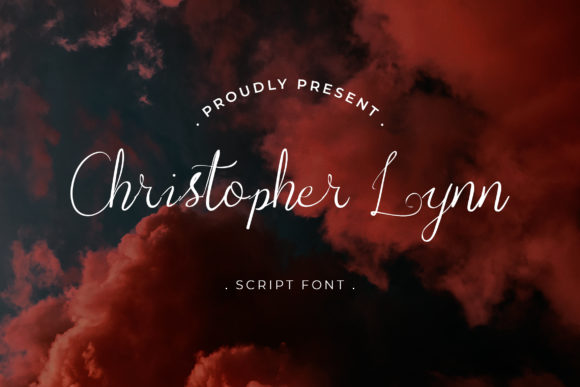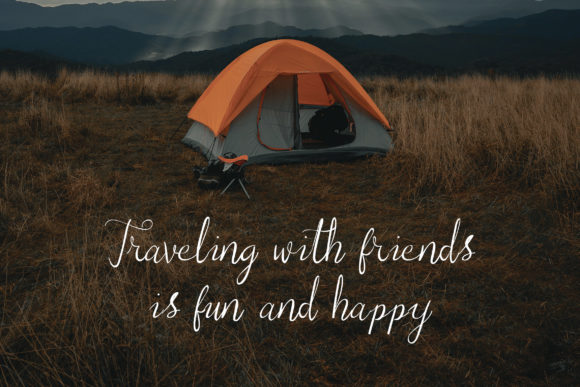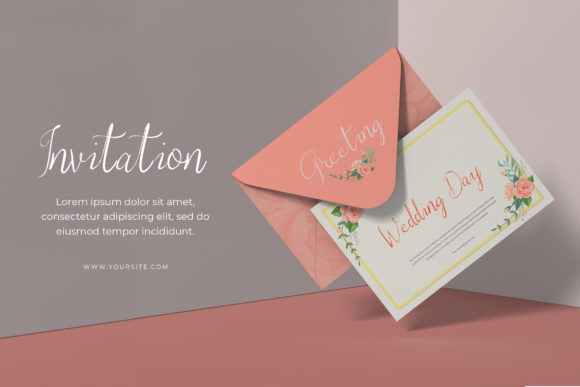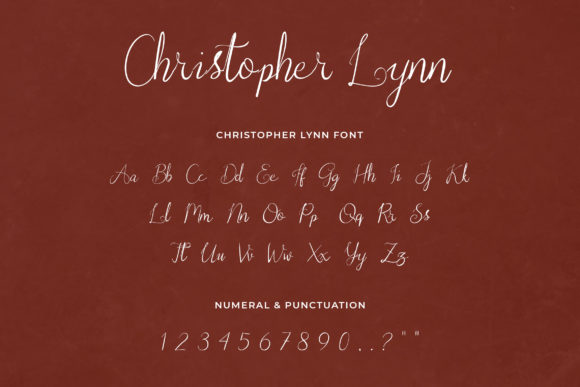
Christopher Lynn Font
About Christopher Lynn Font
“Christopher Lynn” sounds like a thin and sophisticated script font that exudes elegance and trendiness. With its trendy vibe, this font is a versatile choice for a wide range of design ideas, suitable for both formal and informal contexts.
By using “Christopher Lynn” in your designs, you can achieve a sense of sophistication and fashion-forwardness. Its thin script style adds a touch of delicacy and beauty, making your creations feel more refined and captivating.
This font’s trendy and sophisticated nature makes it suitable for various design applications. Whether you’re working on branding, logos, social media graphics, invitations, or any other project, “Christopher Lynn” can effortlessly enhance the visual appeal and create a stylish and modern atmosphere.
With “Christopher Lynn,” you have a font that offers endless variations, giving you creative freedom to explore its many possibilities and customize it according to your design vision.
Incorporate “Christopher Lynn” into your designs, and you’ll have fun exploring its beauty and endless variations, making your projects truly exceptional and visually captivating.
While embracing the thin and sophisticated vibe of “Christopher Lynn,” remember to maintain readability and legibility, especially for longer texts. Proper spacing and alignment between letters ensure that the text remains clear and easy to read, preserving the font’s overall delicacy and trendy allure.
In conclusion, “Christopher Lynn” is a thin and sophisticated script font that offers endless possibilities for your designs. Embrace its trendy vibe and versatility, and let it be the font that adds elegance and a touch of sophistication to your branding, logos, social media graphics, invitations, and other creative projects. With “Christopher Lynn,” your designs will exude a modern flair and captivate the hearts of your audience, making them truly exceptional and visually captivating.